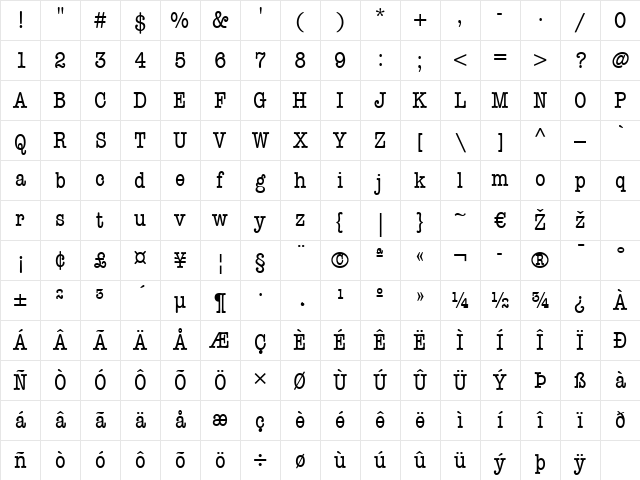
AmericanTypewriter LT Cn Regular
Design Context for AmericanTypewriter LT Cn
AmericanTypewriter LT Cn uses fixed-width spacing throughout, giving it the structured, systematic character associated with coding environments and technical documentation. Its slender proportions lend an understated elegance to any composition.
Pro Tip: Use AmericanTypewriter LT Cn with slightly increased line-height for extended reading - fixed-width spacing can feel dense in longer passages without extra breathing room.